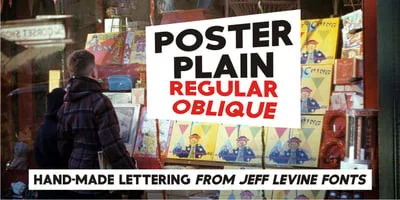
Poster Plain JNL Font
Poster Plain JNL Font is perfect for vintage poster reproductions, retro advertising campaigns, classic movie theater signage, old-fashioned promotional materials, historical exhibition displays, nostalgic event announcements, traditional circus posters, vintage travel advertisements, classic product packaging, authentic period recreations, and any project that requires timeless poster character with straightforward vintage appeal.
What makes Poster Plain JNL Font exciting is its authentic recreation of classic poster typography that captures the honest simplicity and direct communication style of traditional advertising design from the golden age of print marketing. This reliable typeface features clean, unpretentious letterforms with vintage poster proportions that convey trustworthy messaging and nostalgic charm without unnecessary ornamentation. The font's straightforward character adds instant vintage credibility and classic advertising appeal to any design, making it perfect for brands celebrating traditional marketing aesthetics and honest communication values.
Poster Plain JNL Font comes in multiple font families including Regular, Bold, Light, Condensed, Extended, and Vintage variations, offering designers comprehensive options to create classic compositions and achieve the perfect poster aesthetic for retro-focused design projects.
Whether you're developing vintage brand identity, creating nostalgic promotional materials, or designing classic advertising campaigns, Poster Plain JNL Font provides the ideal solution for projects demanding authentic poster character and vintage marketing appeal. This dependable typeface excels in display applications where classic presence is essential, ensuring your designs communicate vintage reliability and traditional advertising values. The straightforward character and poster styling of Poster Plain JNL Font make it an indispensable tool for designers who prioritize vintage advertising, classic poster design, and authentic retro marketing aesthetics in their typographic selections.